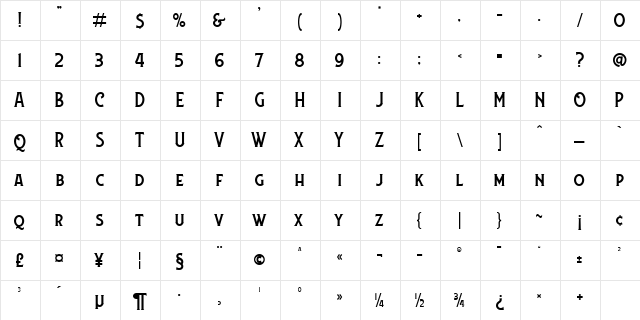
Lansdowne DEMO Regular
| Foundry | Twicolabs Fontdation |
| Designer | Twicolabs Fontdation |
Design Context for Lansdowne DEMO Typeface
Lansdowne DEMO takes a measured approach to typography — its balanced proportions and neutral character make it a reliable workhorse for both digital and print work.